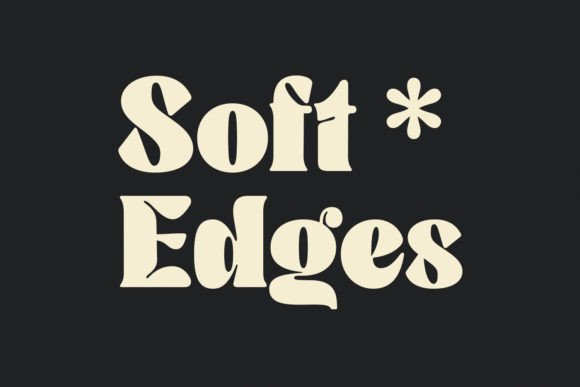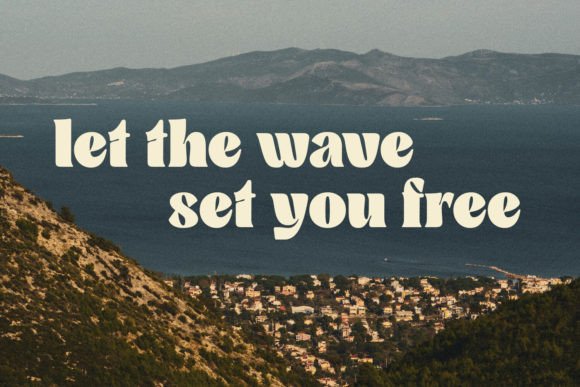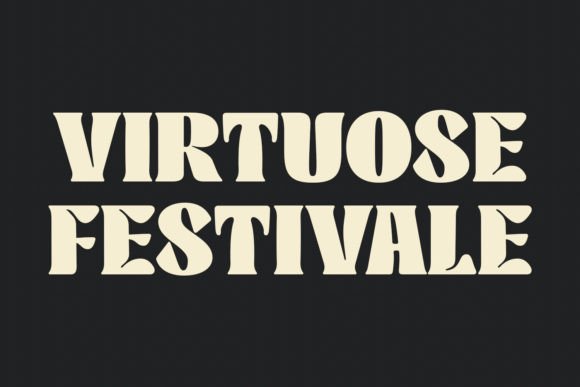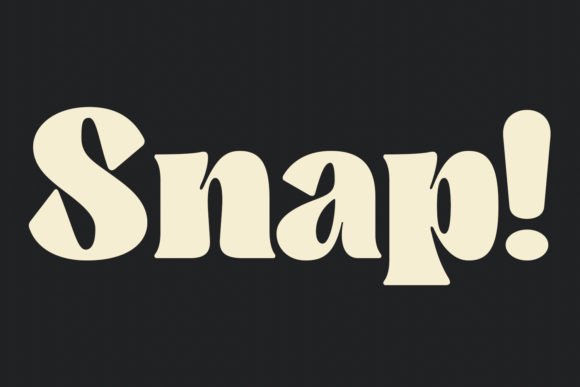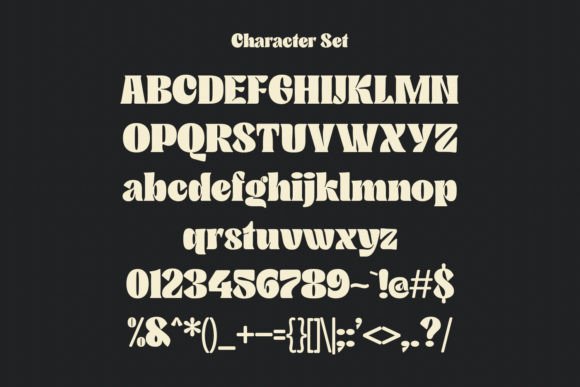
The Birth of a New Era in Typography: Bhank Font
As a designer, there’s nothing quite like that moment when inspiration strikes and a new idea bursts forth. You’re sipping coffee, staring at a blank screen, and suddenly – a vision appears. The words start flowing, and the creative juices begin to flow. For many designers, that moment is the spark that sets off a chain reaction of innovative ideas and fresh perspectives. And that’s exactly what the Bhank Font is all about – sparking creativity and pushing the boundaries of typography.
Bhank Font is an experimental serif display font that’s perfect for making a statement. With its bold strokes and playful ligatures, it’s an ideal choice for logo design, social media, movie titles, and book titles. This versatile font is not just limited to short texts; it can also handle longer texts with ease, making it a great secondary text font to pair with script or serif fonts.
Bhank Font Key Features
- Unique Characteristics: Unique, hand-drawn style with intricate details and subtle texture
Bhank Font Review
Overall, I have mixed feelings about the Bhank font. While it has some interesting qualities, it also has some limitations that prevent it from being a top choice for designers.
- ✨ Unique and quirky design: Bhank font has a distinctive, hand-drawn feel that sets it apart from more traditional fonts.
- ✨ Great for headings: The font’s bold, playful lines make it perfect for use in headings and titles.
- ✨ Good legibility: Despite its unconventional design, Bhank font is surprisingly easy to read, even at small font sizes.
Limitediations:
- ⚠️ Limited versatility: Bhank font is best suited for use in informal, creative contexts, and may not be suitable for more formal or professional applications.
- ⚠️ Inconsistent spacing: At times, the font’s spacing can be inconsistent, which may affect the overall layout and readability of text.
In conclusion, while Bhank font has its strengths, its limitations prevent it from being a go-to choice for designers. However, it can still be a useful addition to a designer’s toolkit, particularly for projects that require a playful, creative touch.
The Bhank font is perfect for:
- Personalized gift tags and cards.
- Handwritten-style logos and branding.